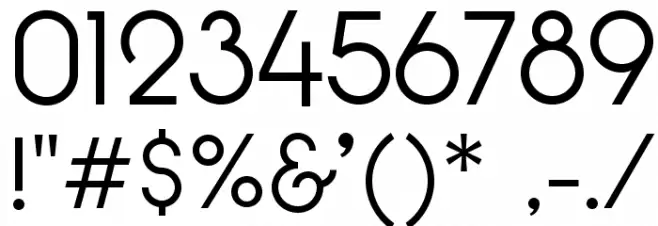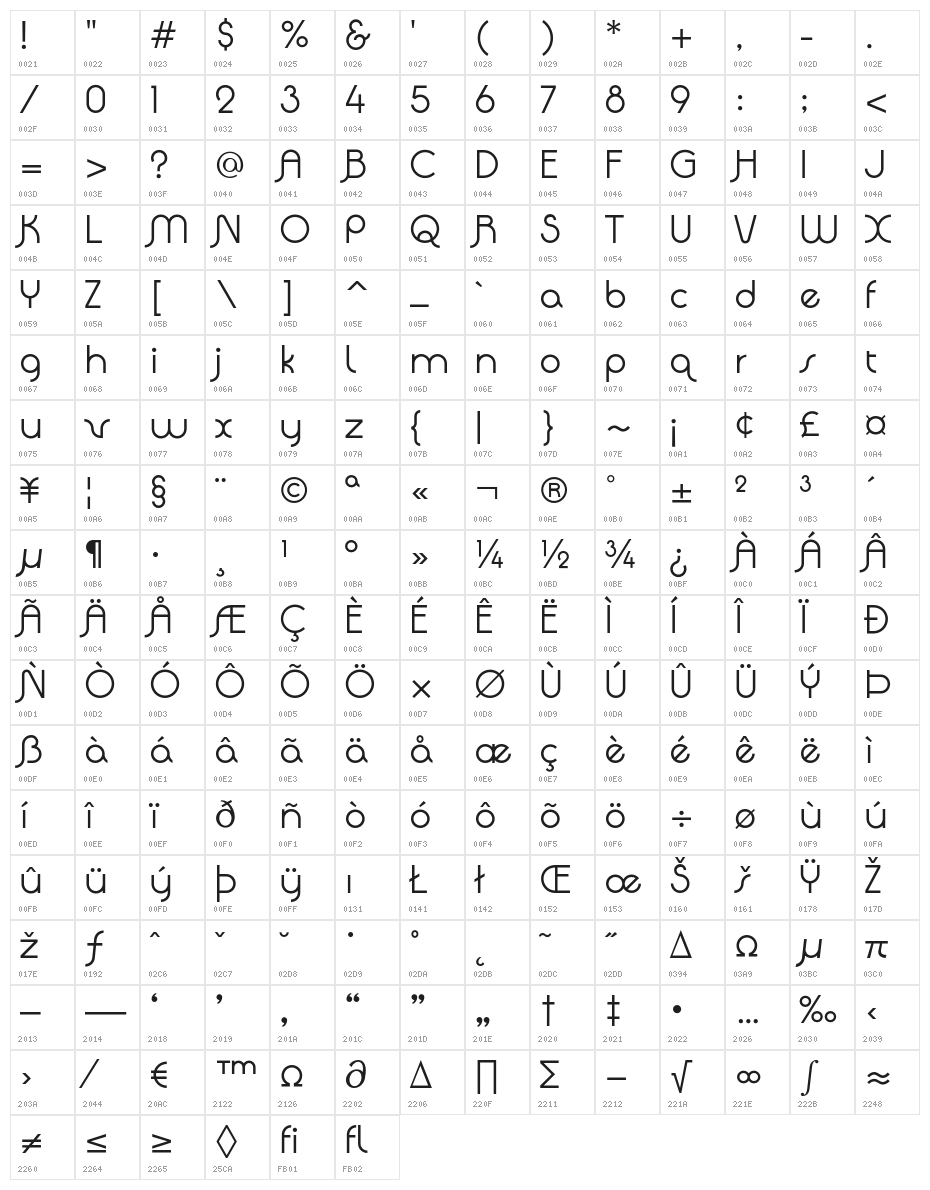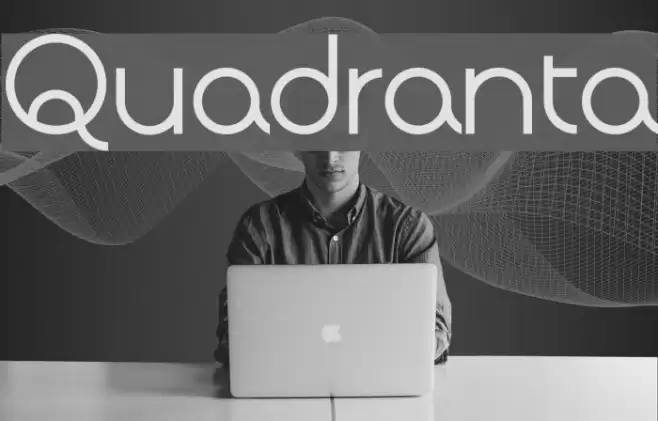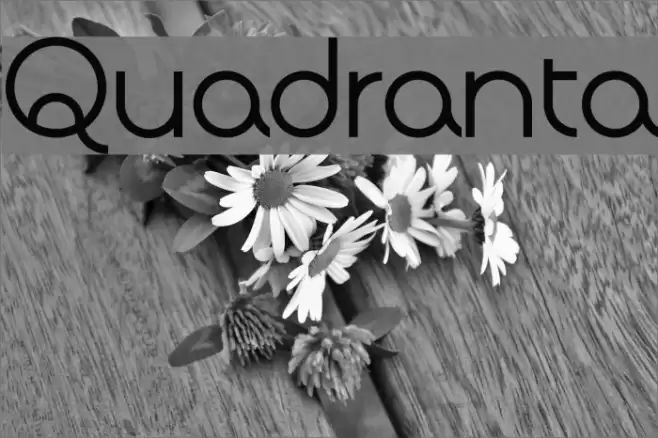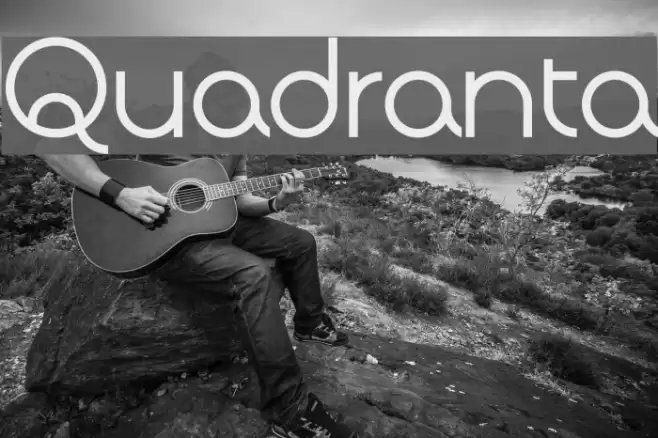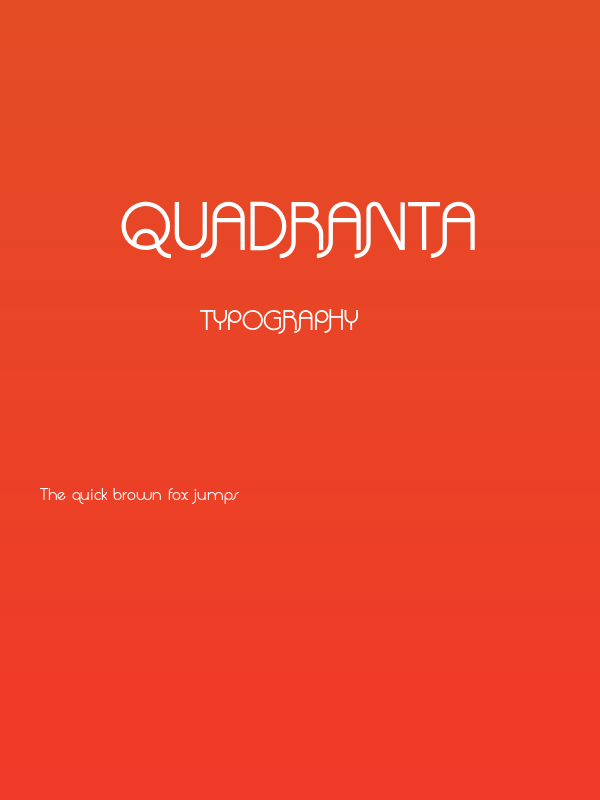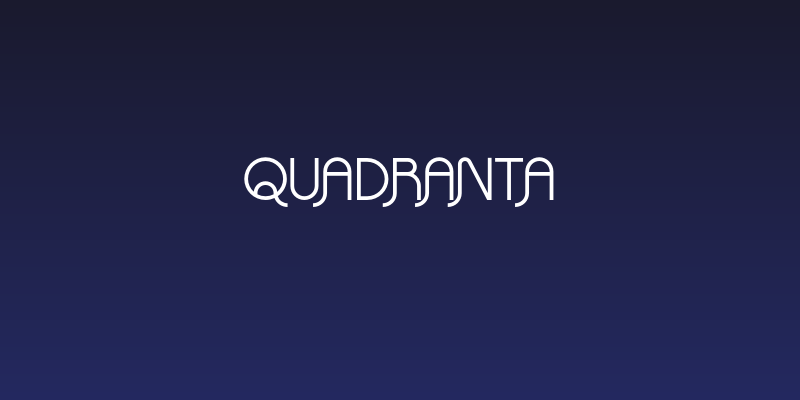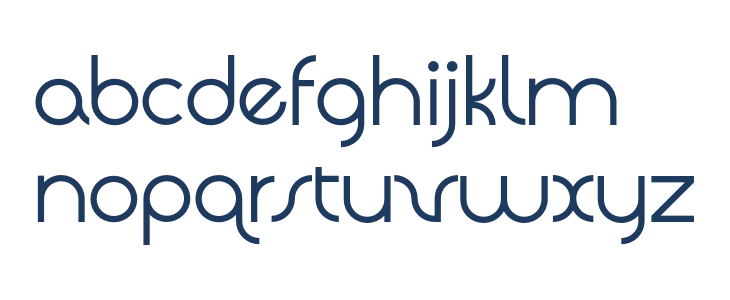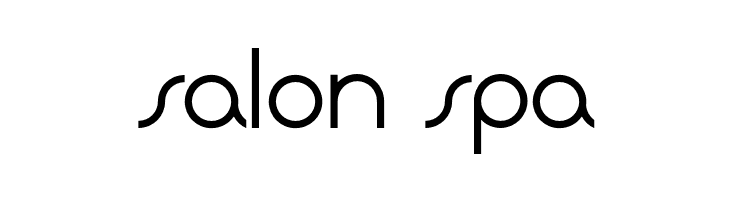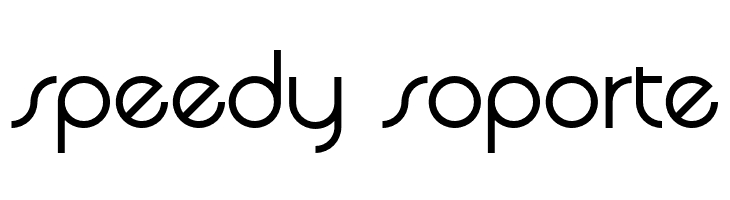
Quadranta Font
Quadranta Description
This font features a sleek, modern design with clean lines and geometric shapes. The characters are crafted with a consistent stroke width, giving it a uniform appearance. The uppercase letters are bold and assertive, while the lowercase letters maintain a harmonious balance with slightly rounded edges. The numerals are clear and easily distinguishable, making them ideal for digital displays. Special characters are thoughtfully designed to complement the overall aesthetic. This font's minimalist style makes it versatile for various applications, from branding to digital interfaces.
| Proposed Projects | Ideal for branding, digital interfaces, signage, and modern editorial design. |